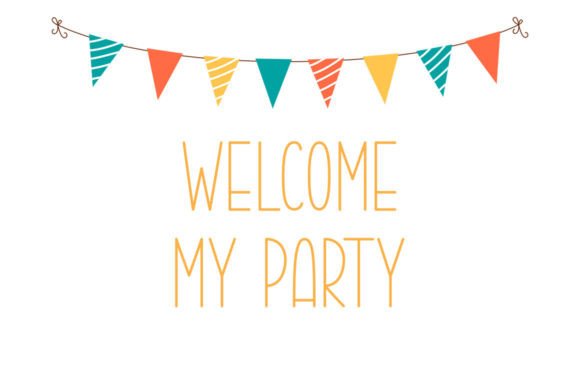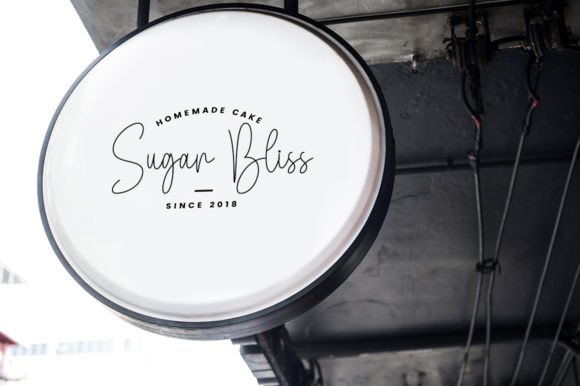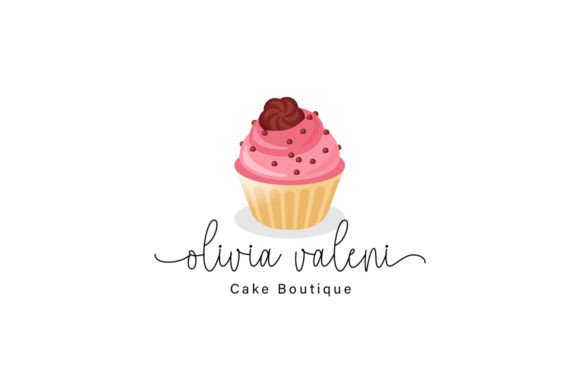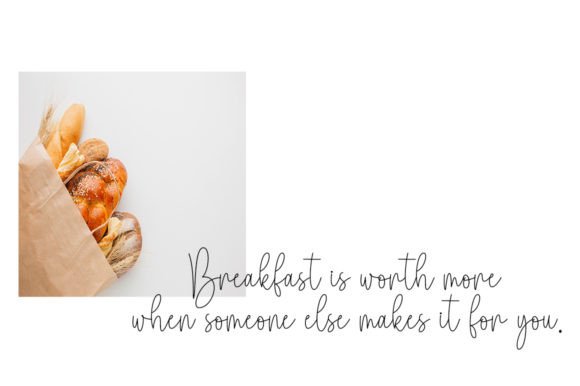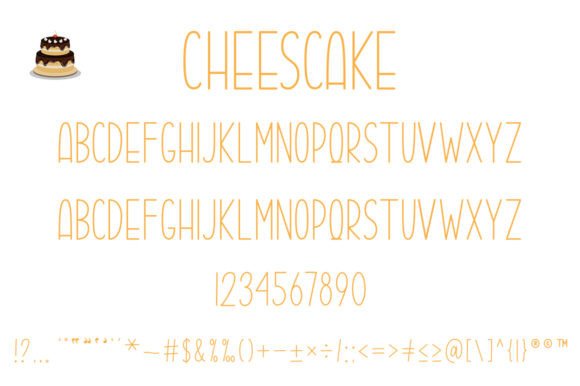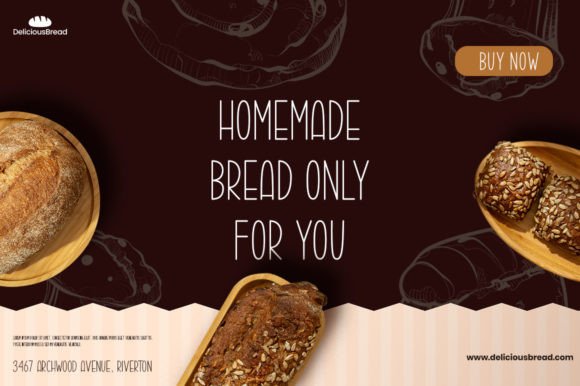
Introducing Cheescake Duo Font: Elevate Your Designs with Elegance and Romance
Are you a designer or crafter looking for a font that adds a touch of romance and sophistication to your creations? Look no further than the Cheescake Duo Font. This stylish and delicate duo font, consisting of a sans serif and script font, is perfect for a wide range of applications, from greeting cards to headlines. In this article, we’ll dive into the features and benefits of the Cheescake Duo Font and explore how it can elevate your designs.
A Font Duo Like No Other
The Cheescake Duo Font is a unique and versatile font that combines the simplicity of a sans serif font with the elegance of a script font. This duo font is designed to provide you with the flexibility to create a wide range of designs, from modern and sleek to romantic and whimsical. Whether you’re creating greeting cards, invitations, or headlines, the Cheescake Duo Font is sure to add a touch of sophistication and elegance.
One of the standout features of the Cheescake Duo Font is that it is PUA (Private Use Area) encoded. This means that you can access all of the amazing glyphs and ligatures with ease, giving you even more creative freedom to customize your designs. With PUA encoding, you can easily access the font’s extended character set, including swashes, alternates, and ligatures, to create truly unique and eye-catching designs.
The Cheescake Duo Font is a perfect fit for designers and crafters who want to add a touch of romance and elegance to their creations. Whether you’re creating digital designs or physical products, such as greeting cards, invitations, or scrapbook pages, this font is sure to impress. The font’s versatility and range make it an excellent choice for a wide range of projects, from modern and sleek designs to more traditional and whimsical creations.
Benefits of Using Cheescake Duo Font
So, what are the benefits of using the Cheescake Duo Font? Here are just a few:
- Elegance and sophistication: The Cheescake Duo Font adds a touch of romance and elegance to any design, making it perfect for creating beautiful and eye-catching creations.
- Versatility: The font duo includes a sans serif and script font, providing you with the flexibility to create a wide range of designs.
- Easy to use: The font is PUA encoded, making it easy to access all of the glyphs and ligatures.
- Perfect for designers and crafters: The Cheescake Duo Font is a great choice for designers and crafters who want to add a touch of romance and elegance to their creations.
In conclusion, the Cheescake Duo Font is a stylish and delicate duo font that is perfect for designers and crafters looking to add a touch of romance and elegance to their creations. With its PUA encoding, versatility, and range, this font is sure to become a go-to choice for a wide range of projects. Whether you’re creating greeting cards, headlines, or other designs, the Cheescake Duo Font is sure to impress.